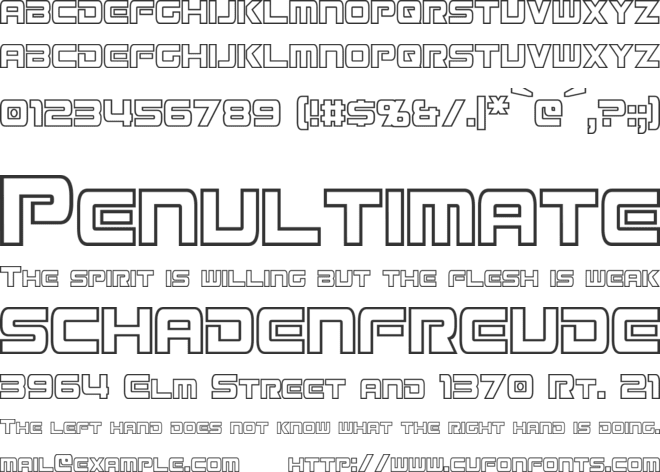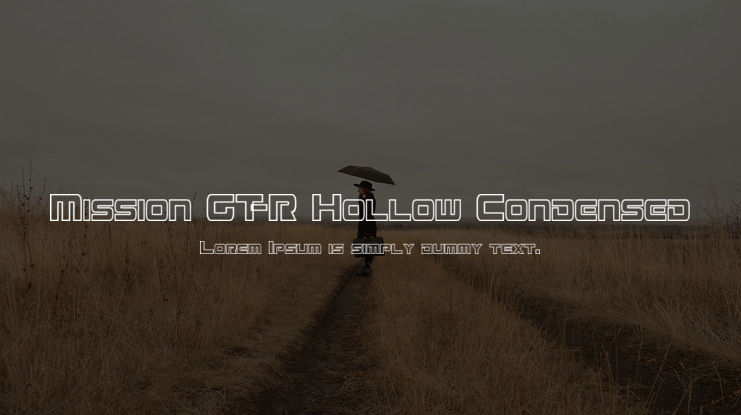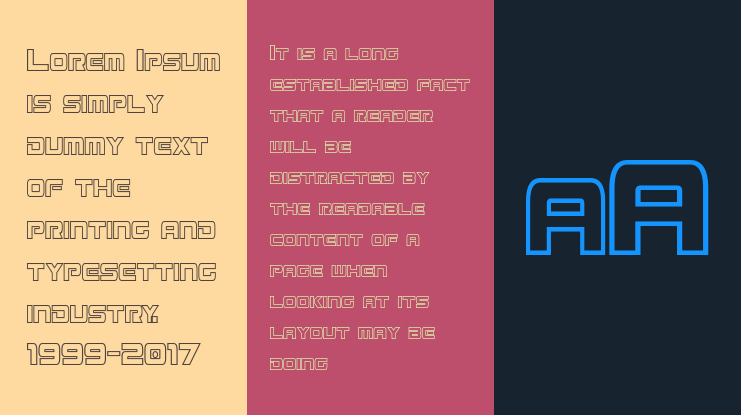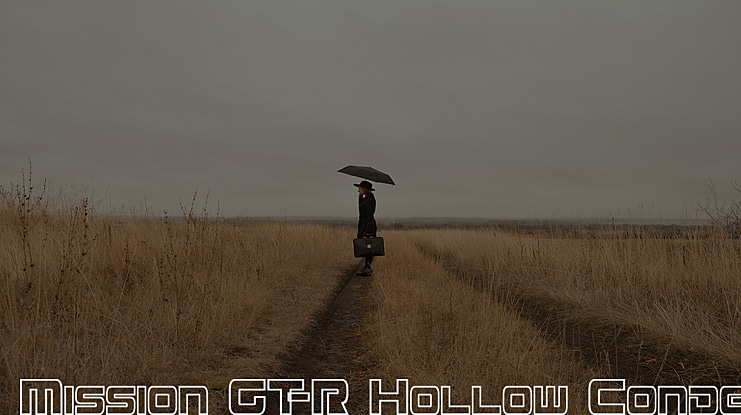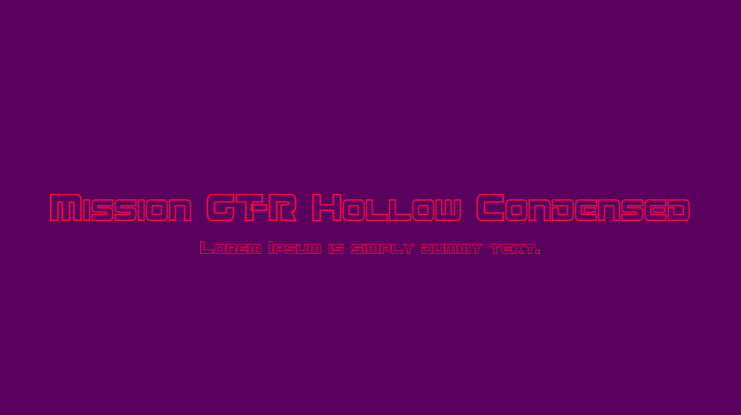
Mission GT-R Hollow Condensed Font Family
Neale Davidson
This techno-styled typeface is based on the character writing from Takara's "Transformers: GT-R" subline. Includes full alphabet, numerals, extended punctuation, and Euro. Includes italic, condensed, and hollow versions.